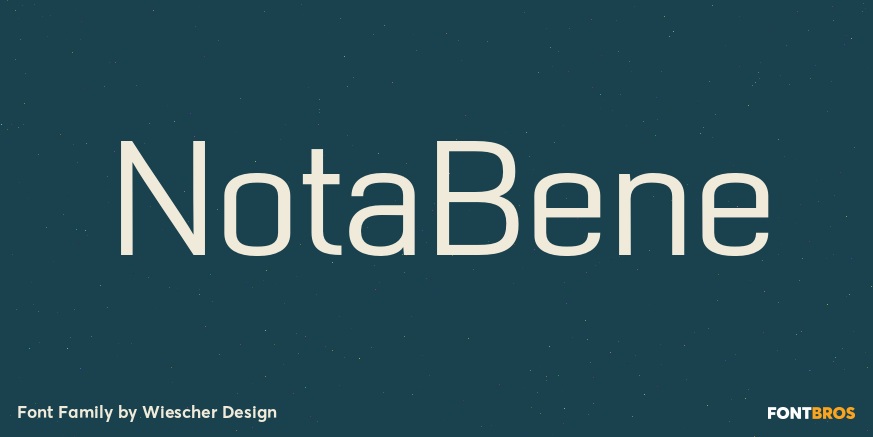
About NotaBene
?NOTABENE? is a new, squarish, narrow, technical font? designed by Gert Wiescher in 2015 ? has 7 weights with corresponding oblique cuts. ?NOTABENE? is well suited for advertising, logo, billboards, small text, signage, branding, packaging, editorial,…